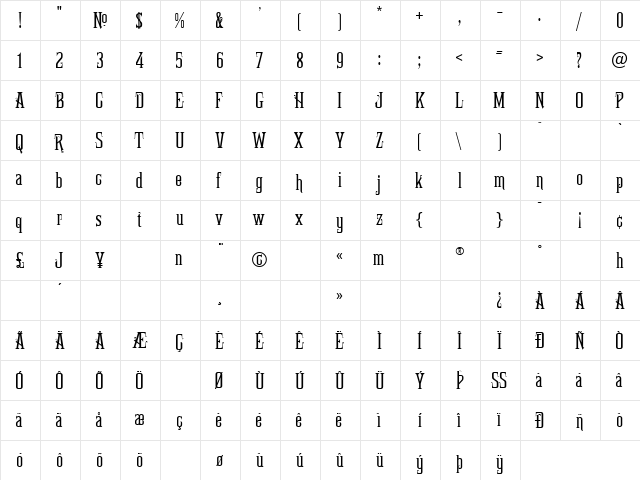
LHF Euphoria Regular
Design Context for LHF Euphoria Typeface
LHF Euphoria takes a measured approach to typography — its balanced proportions and neutral character make it a reliable workhorse for both digital and print work.
Pro Tip: Use LHF Euphoria in both headline and body roles to test its range before committing to a single application.